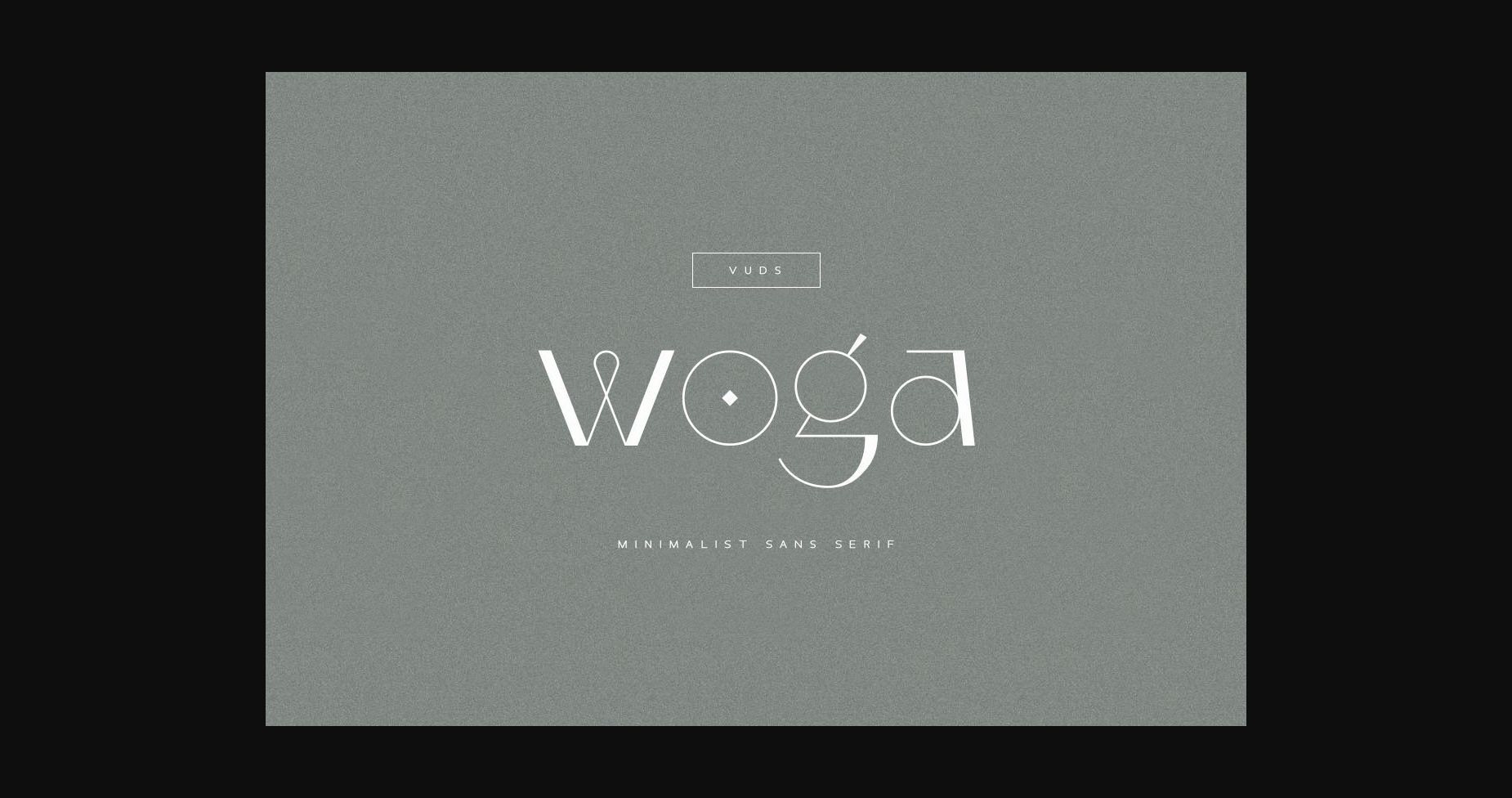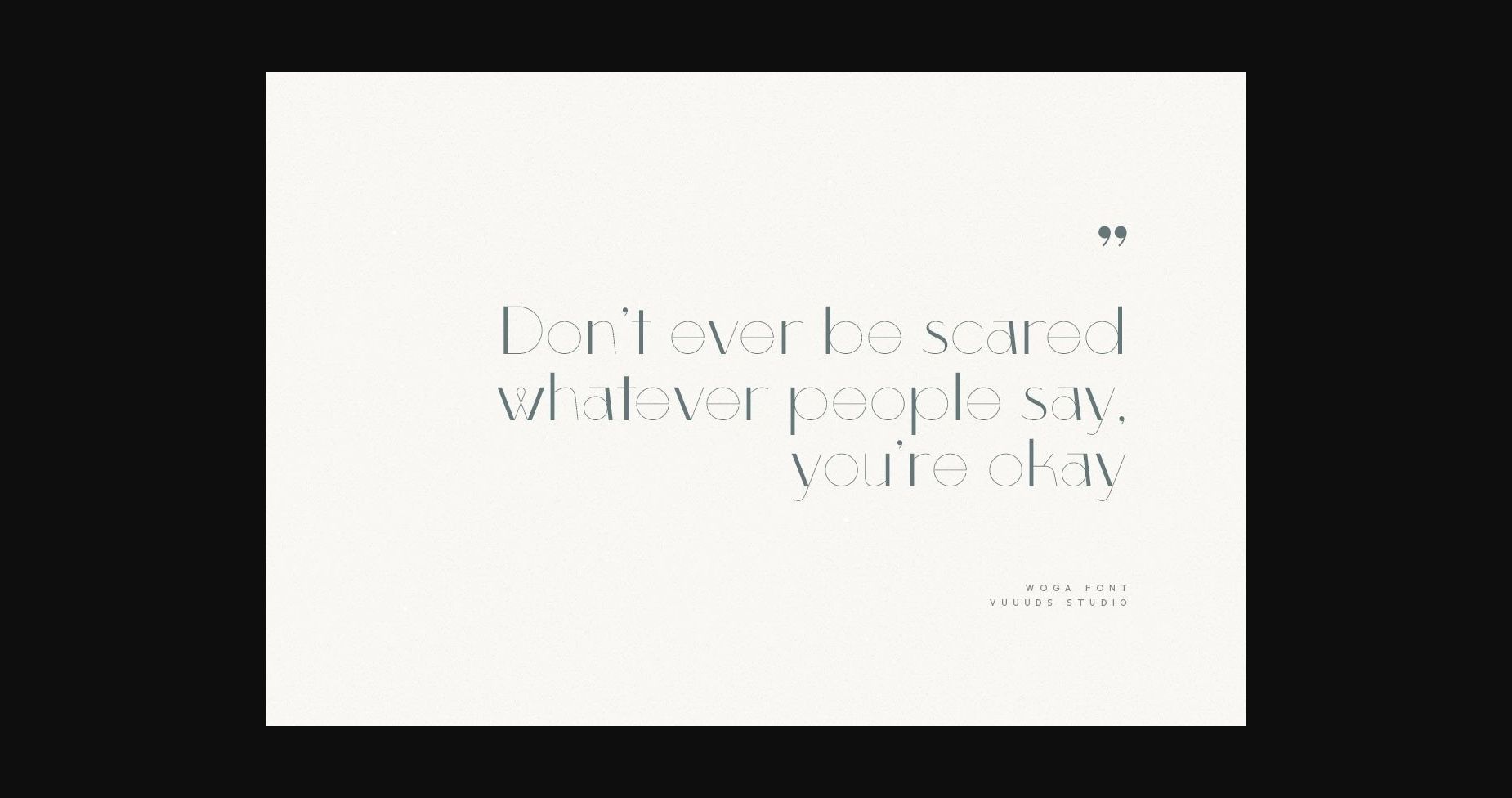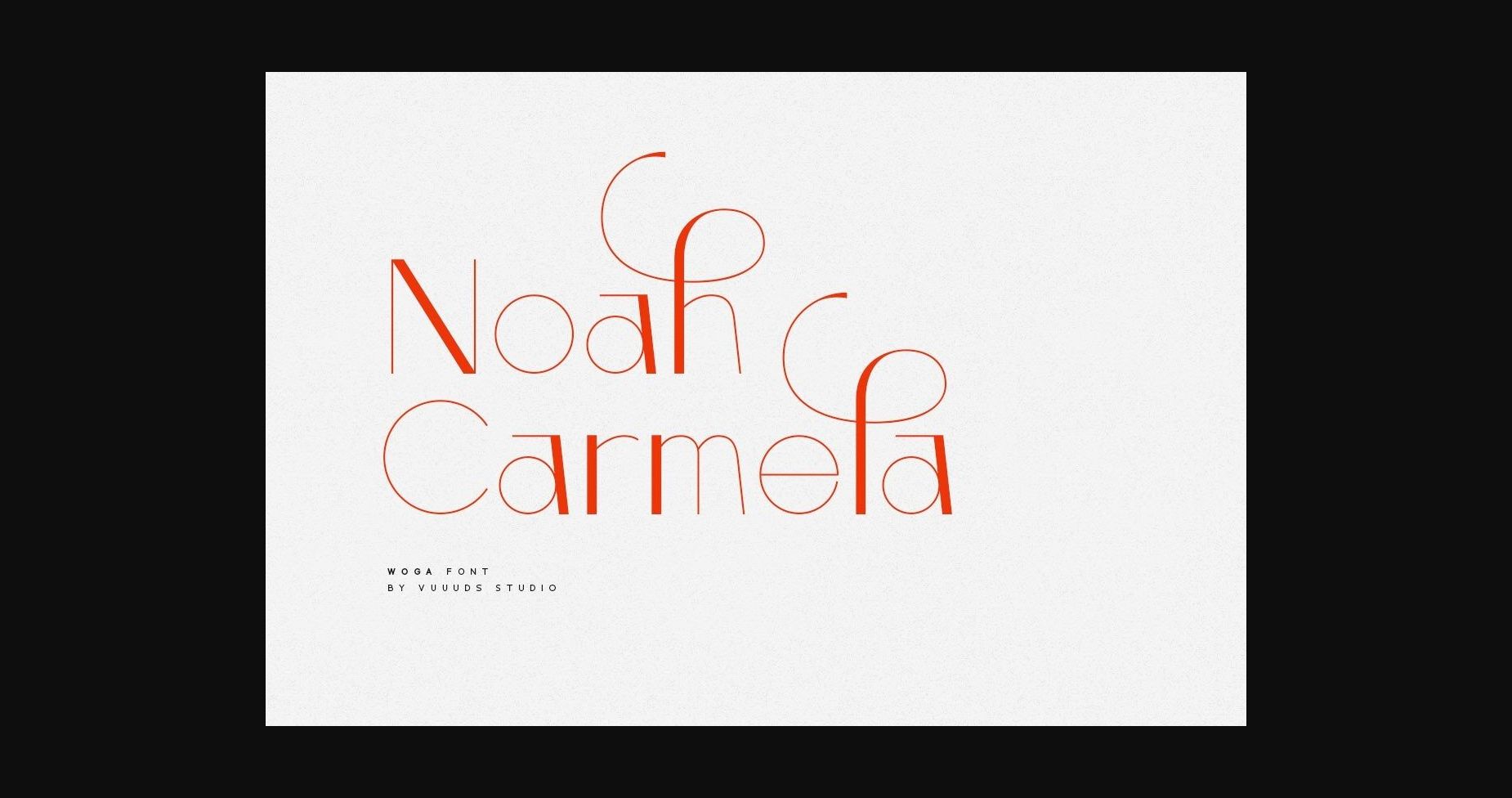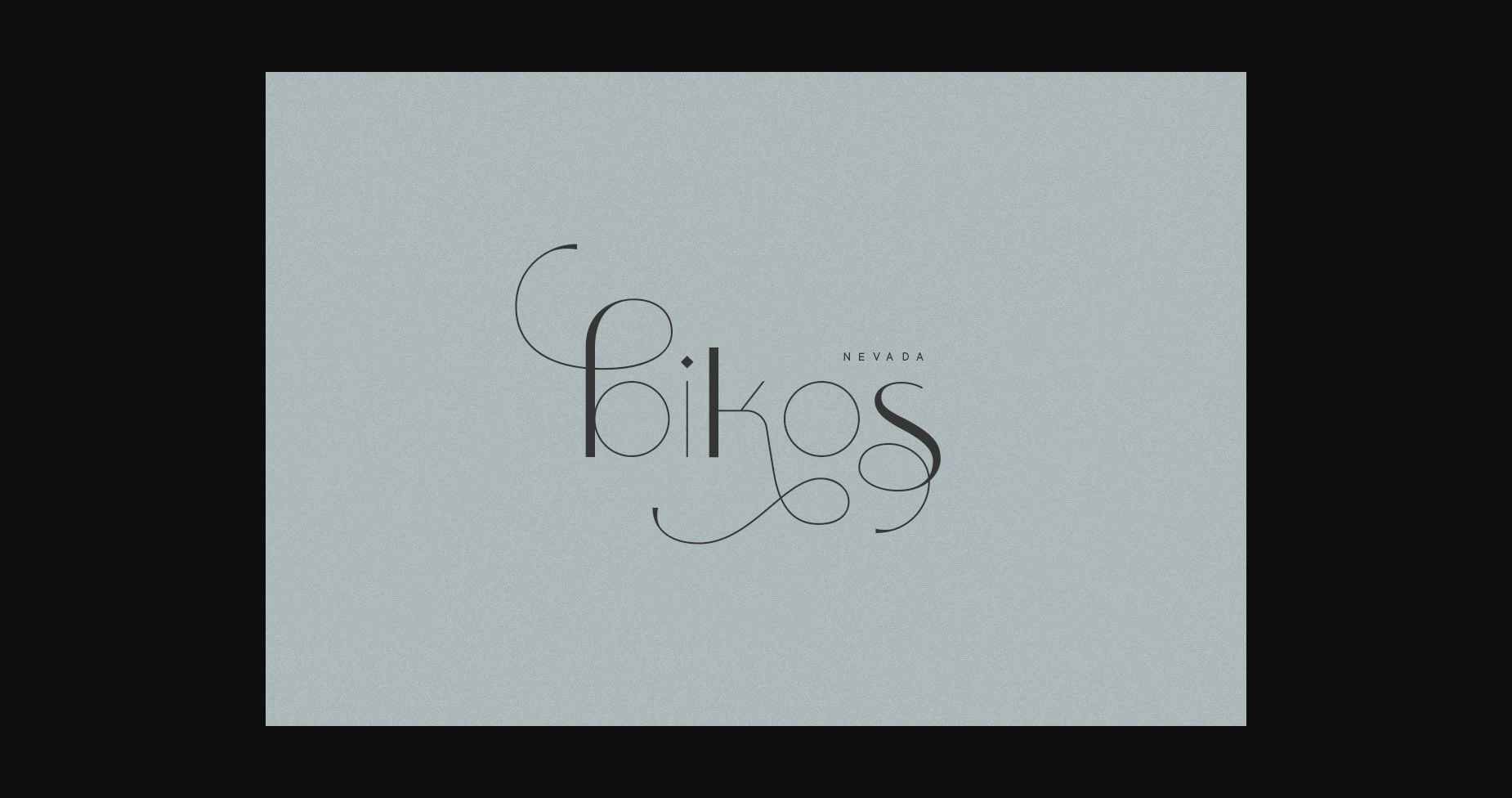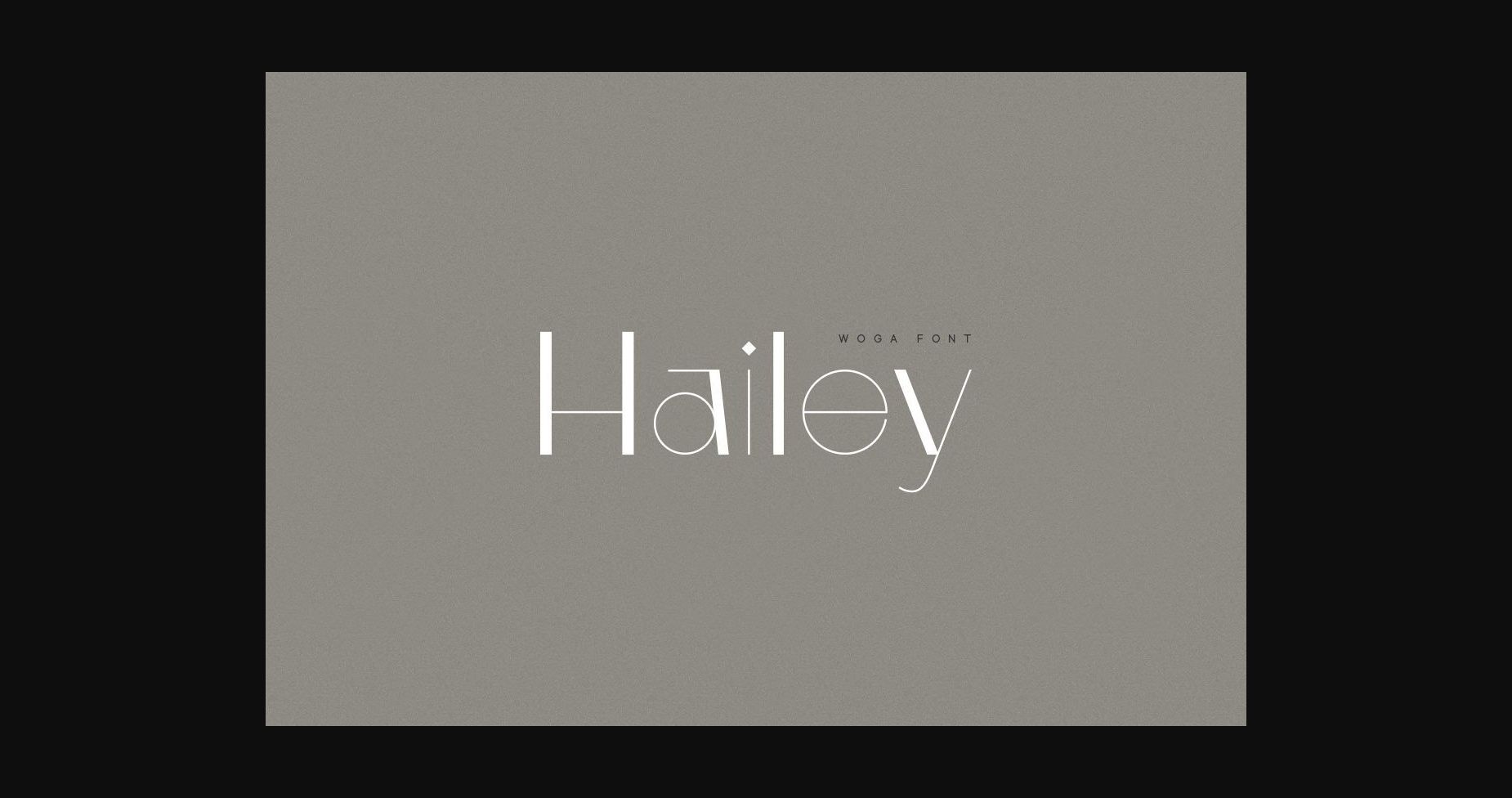
About Woga Font
Introducing the Woga Font!
Woga is a modern sans serif font. Every single letter has been carefully crafted to produce an impeccable, modern, and futuristic look! This font is PUA encoded, which means you can access all of the glyphs and swashes with ease!